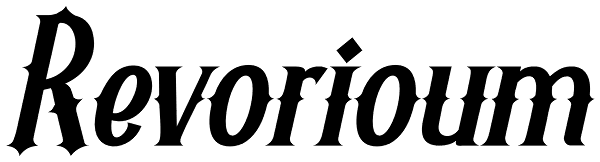
Revorioum
Revorioum has a classical bold contemporary typeface with a dynamic and flexibility touch, it is equipped with lots of opentype features making it easy to play with.
Revorioum Font